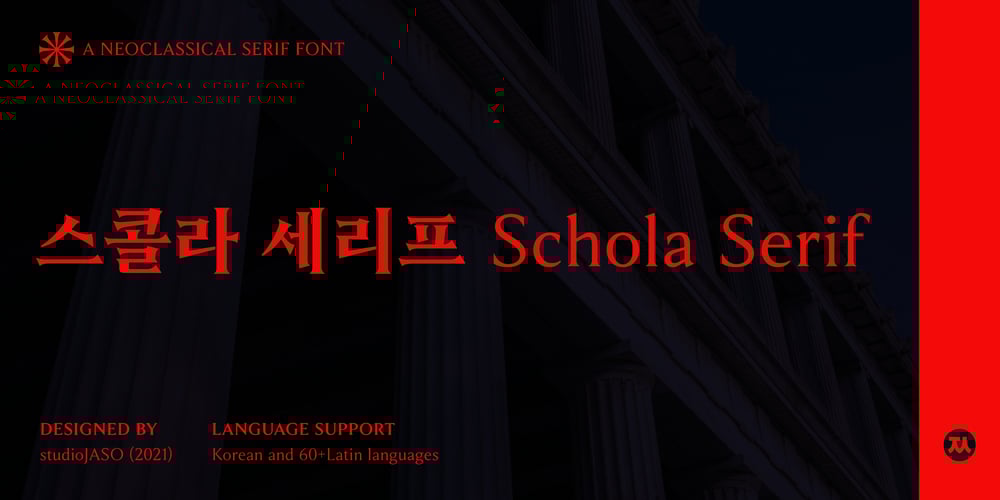
Schola Serif
Schola Serif font
Schola Serif Font Family was designed by StudioJASO and published by StudioJASO. Schola Serif contains 5 styles and family package options. Schola Serif is a neo classic serif font that reinterpret the classic Latin style structure and expression in a modern and intriguing way.Schola Serif looks sharply defined, giving clear-cut impression. It features sharp serif and details and presents its own distinctive character when used in title or sub headline or written with over 16pt.Font with 5 different weights, over 60+ languages, 9 OpenType features.It really does work in everything ranging from editorial design, graphic, and even integrated branding design.